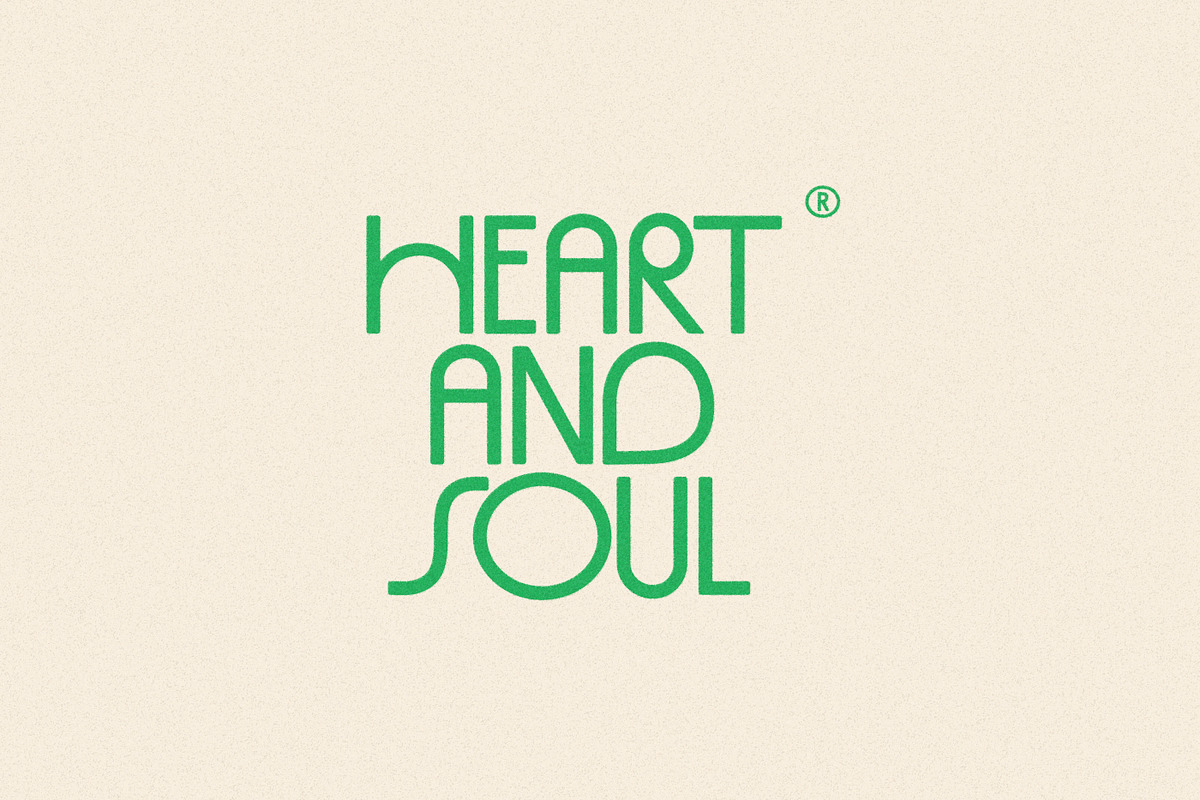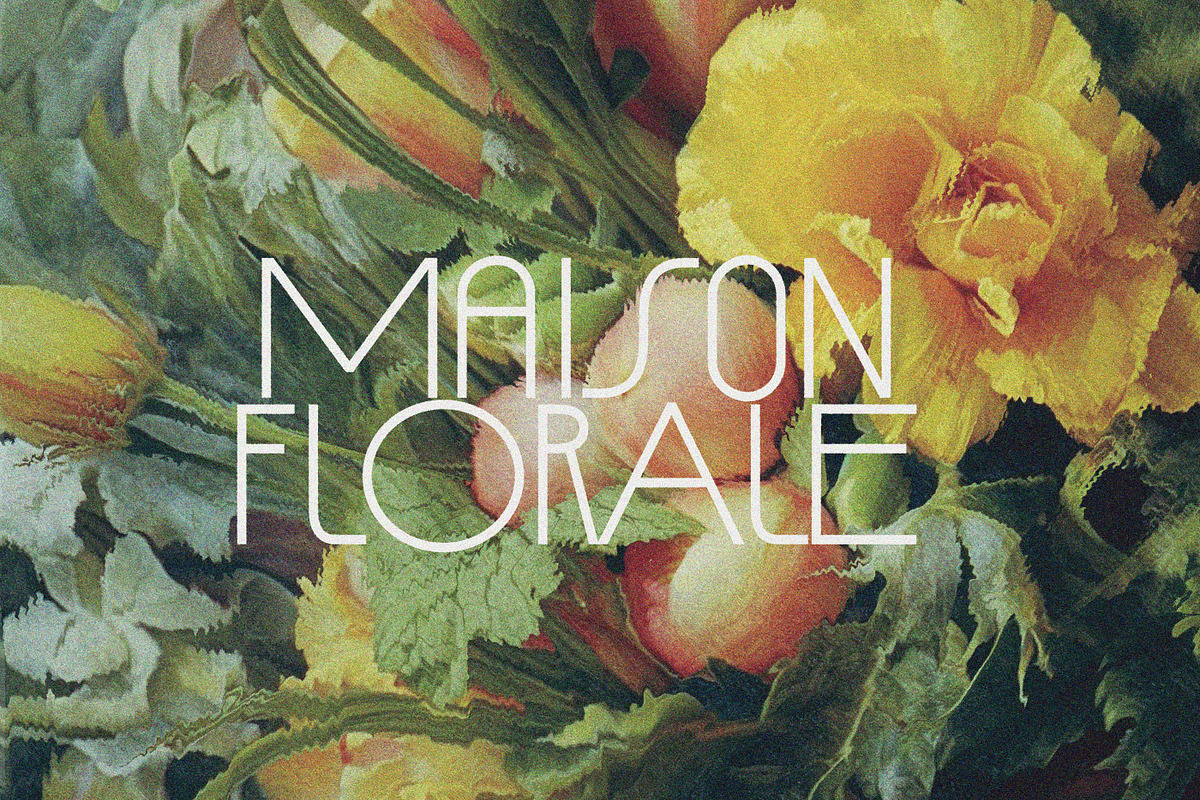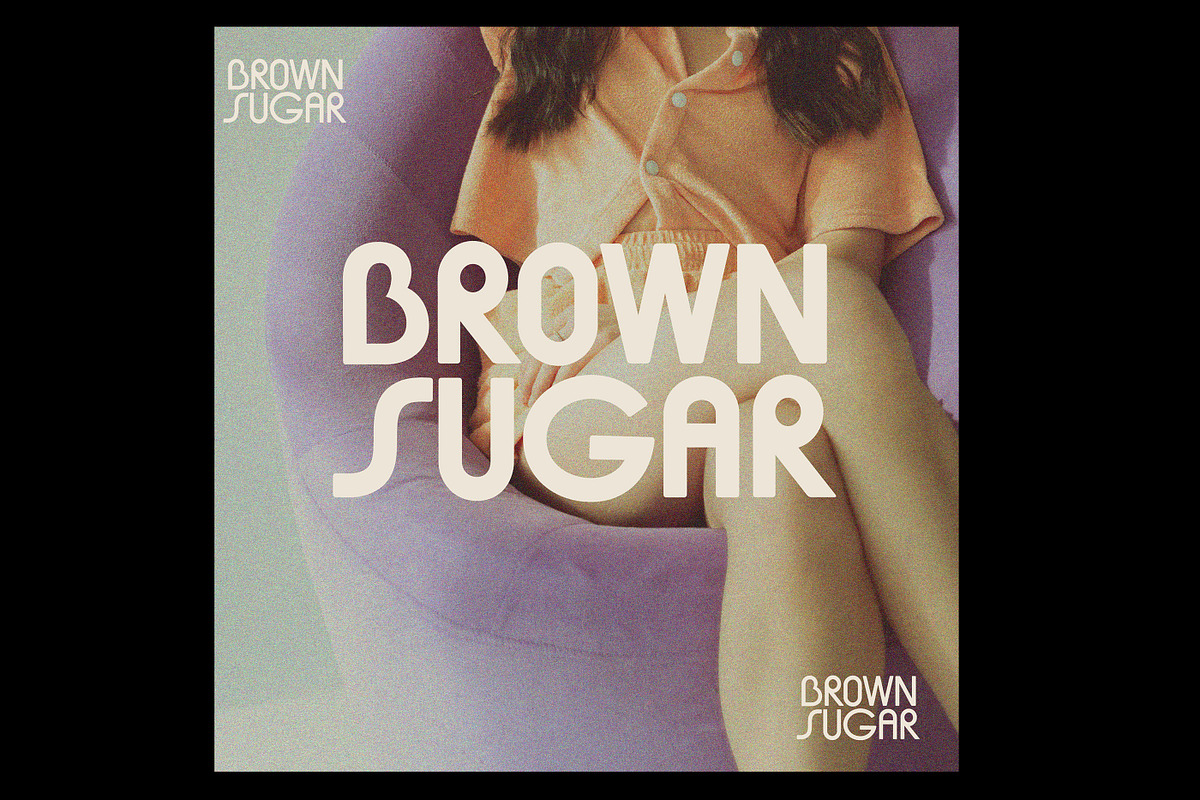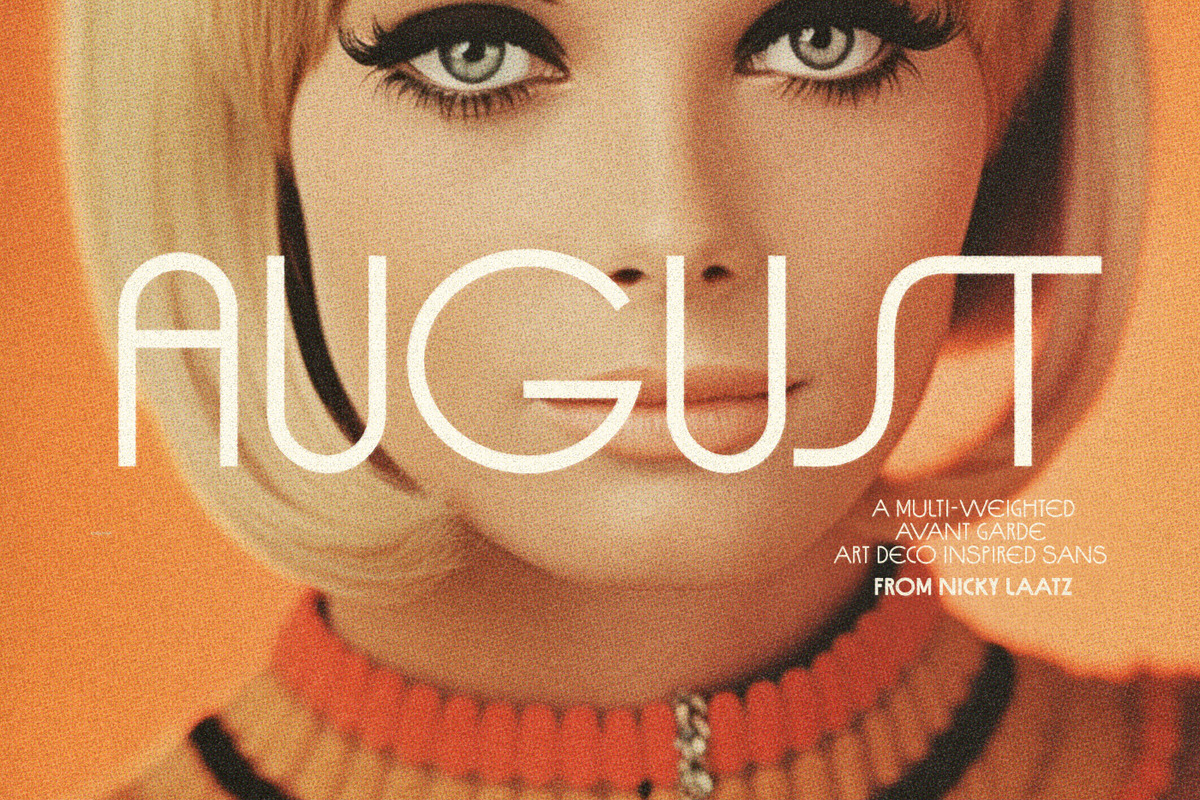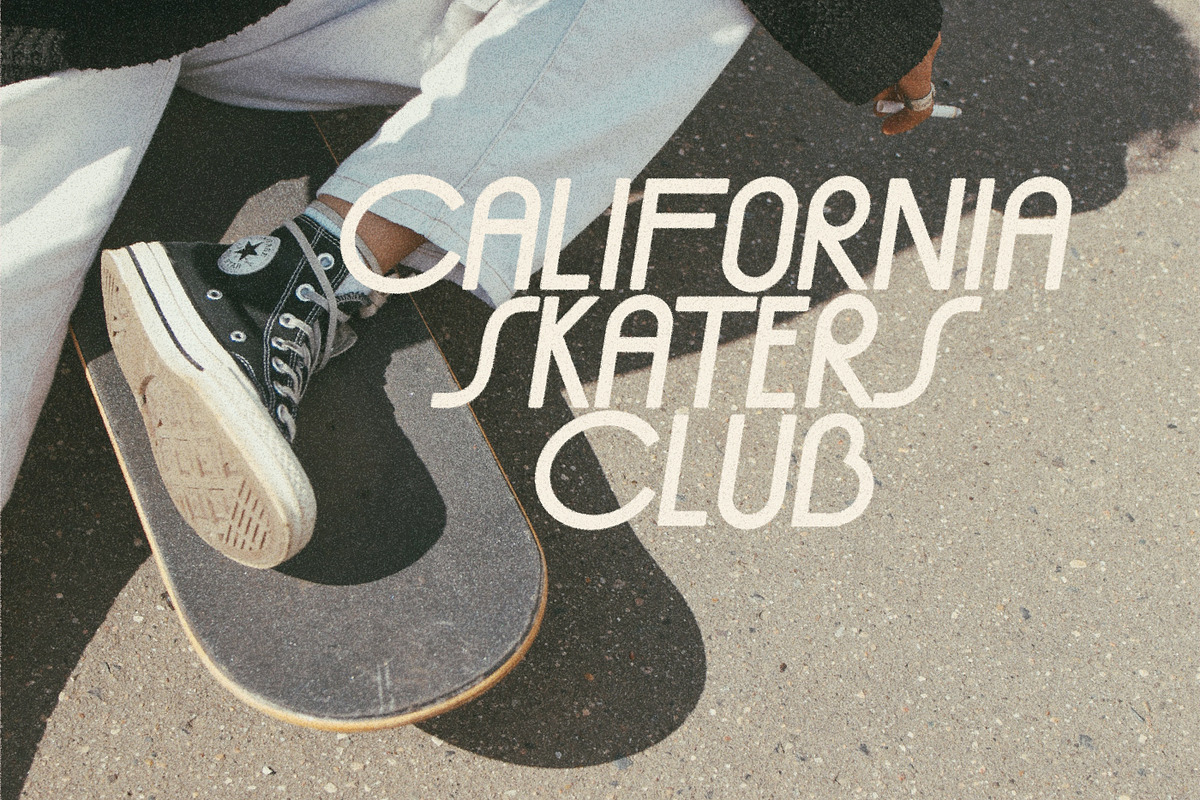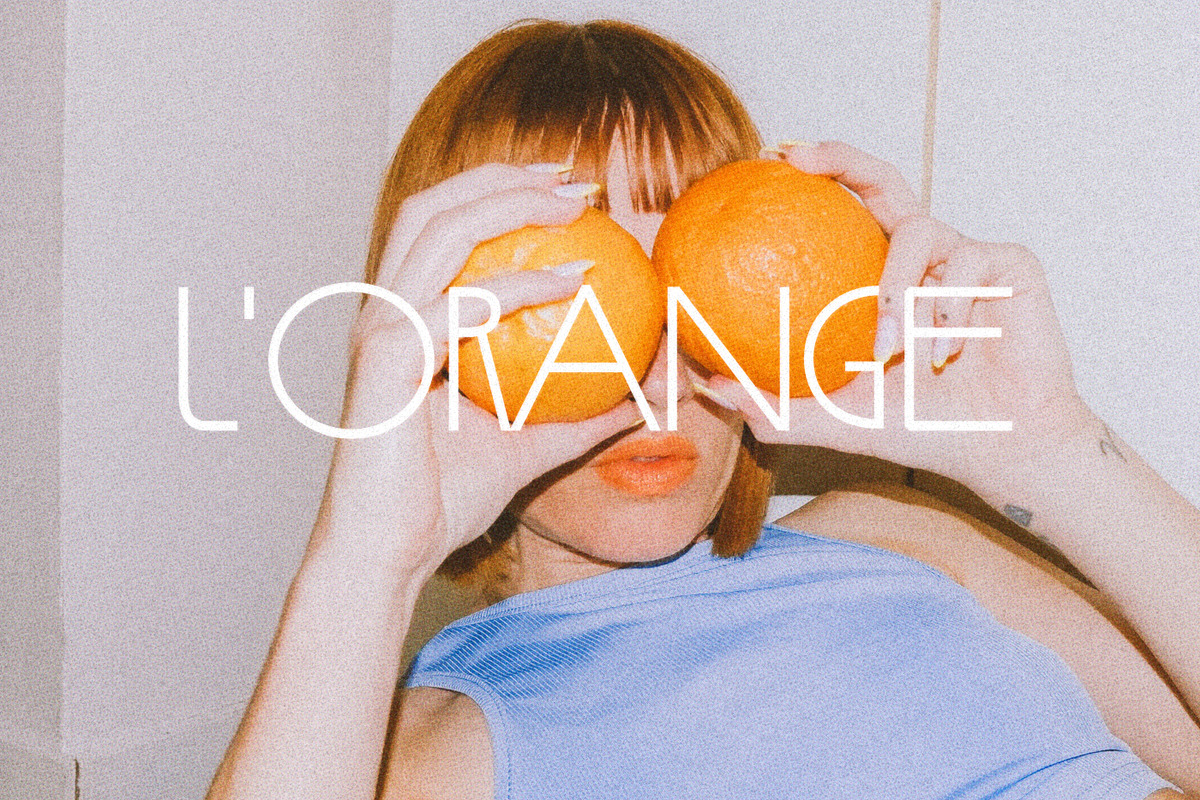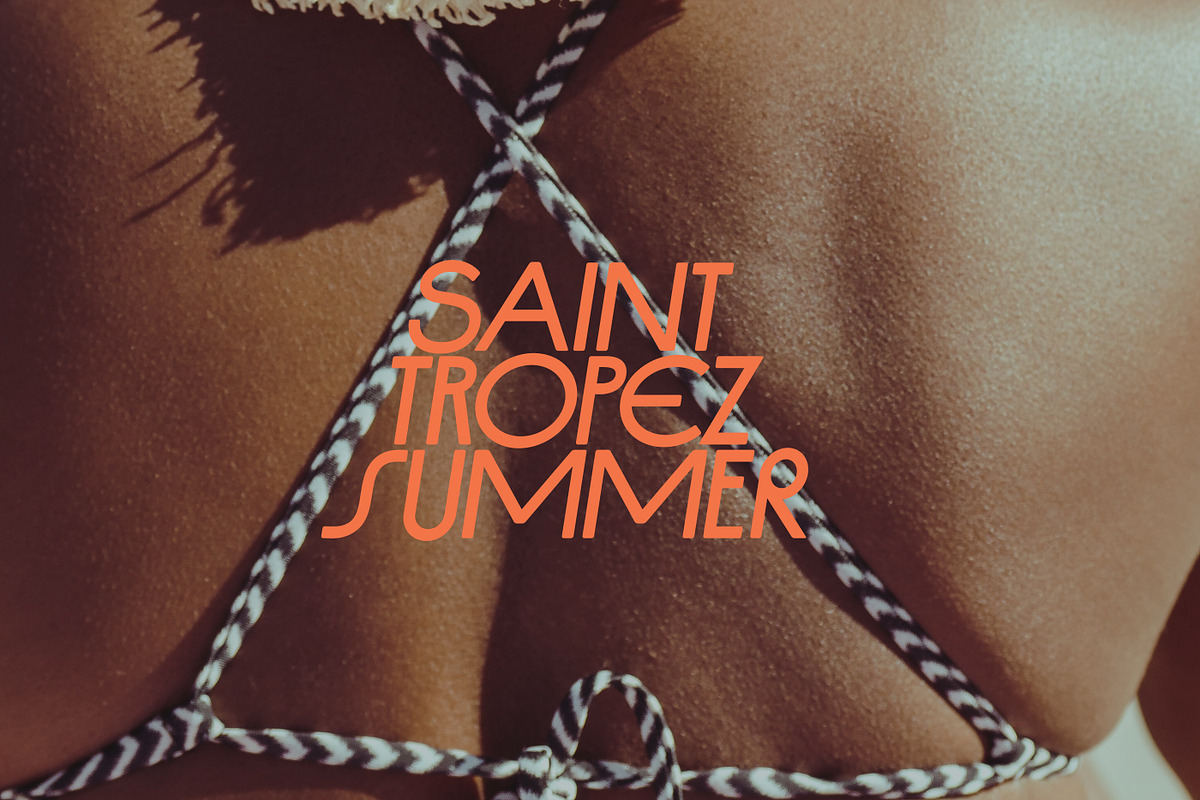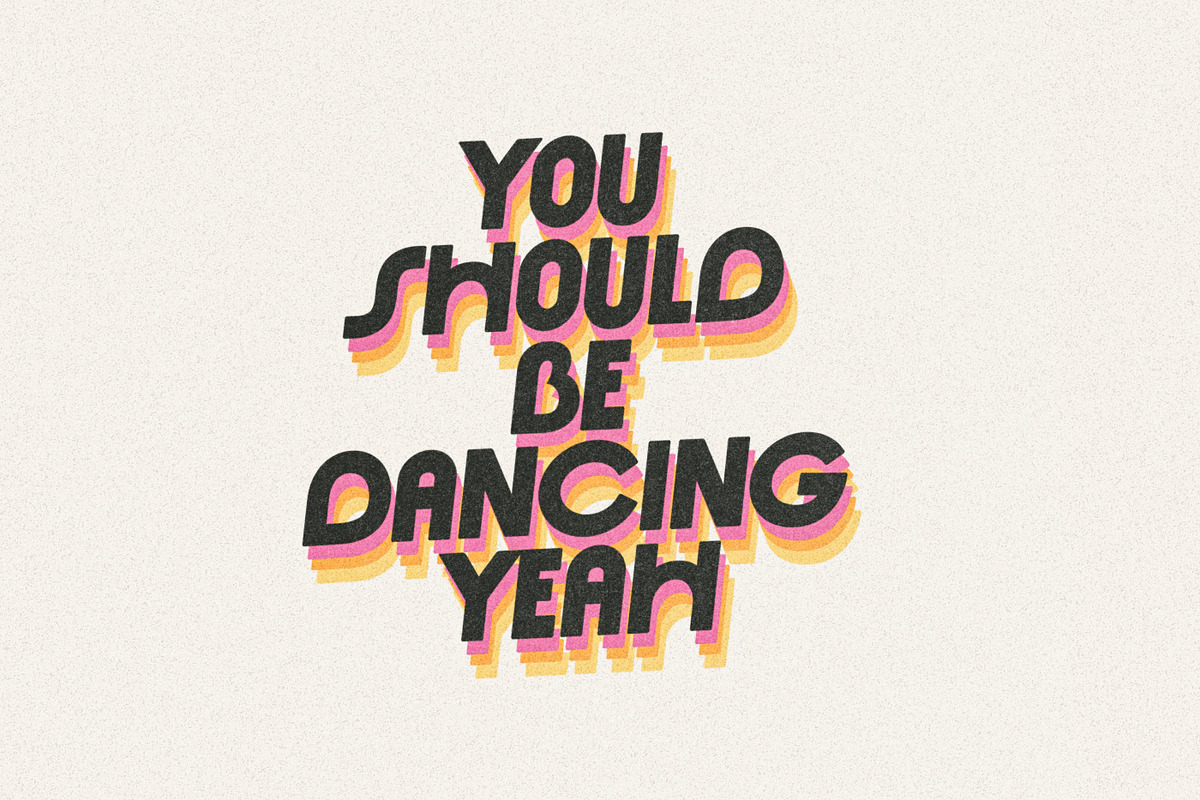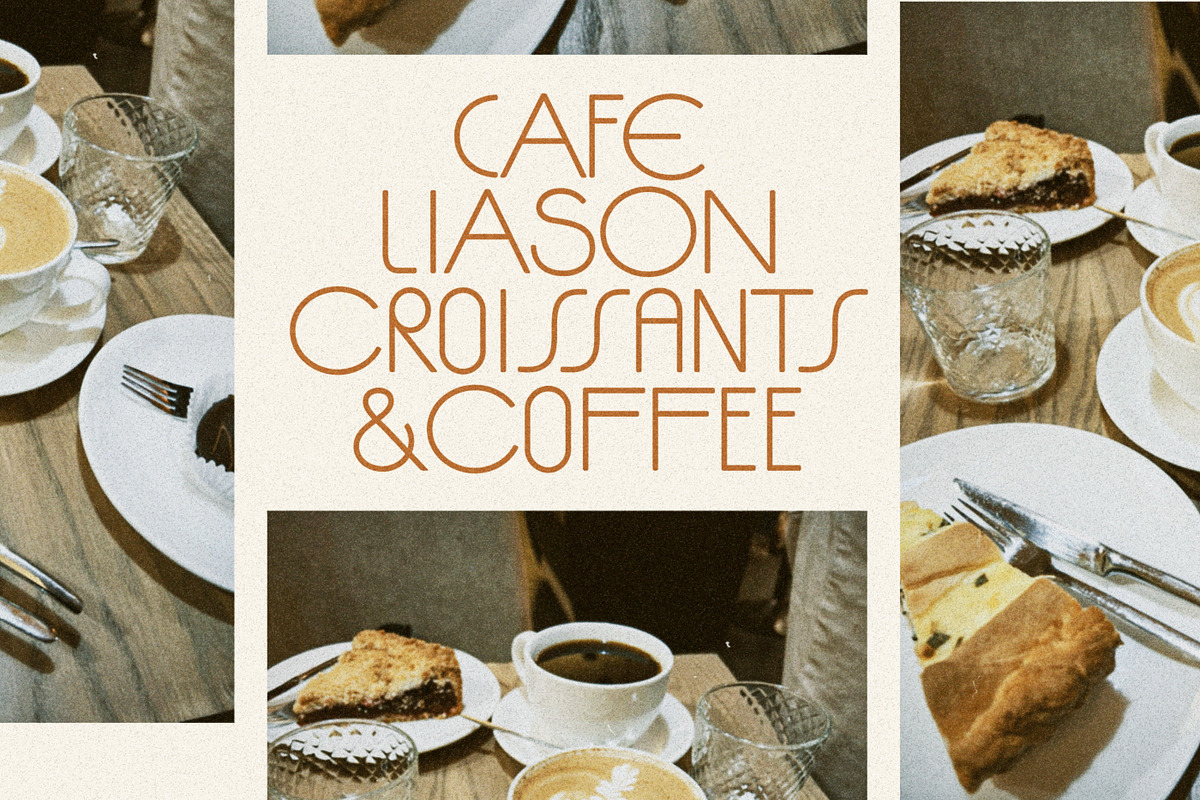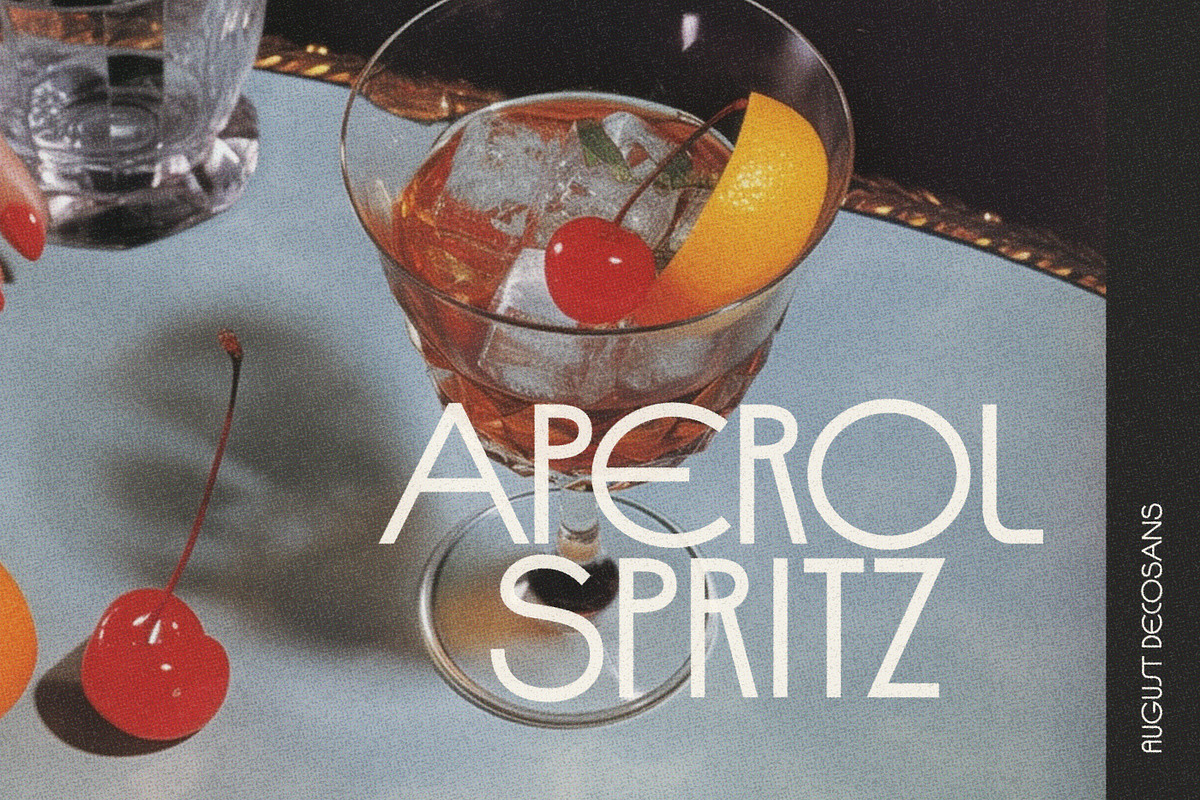
AUGUST DecoSans Multi-weight Family
Say hello to August DecoSans - a multi-weight type family that combines the chic stylishness of the art deco period with the retro feel of the ultra cool 70s :)
A uniquely versatile sans that can take on the most sophisticated elegant designs, but can also morph into something more meaty and tomboyish :)
August DecoSans is an all caps typeface, with altering letters for uppercase and lowercase keystrokes, chop and change them to get the feel you want. It comes in 2 styles, one with clean sharp corners , and the other with more rounded softer edging. The family consist of a regular upright version, and a slanted version, and there are 13 weights. (There are 52 fonts in total this type family )
There is an extra 'E' in your opentype alternates if you'd like a fatter E that isn't as art deco :)